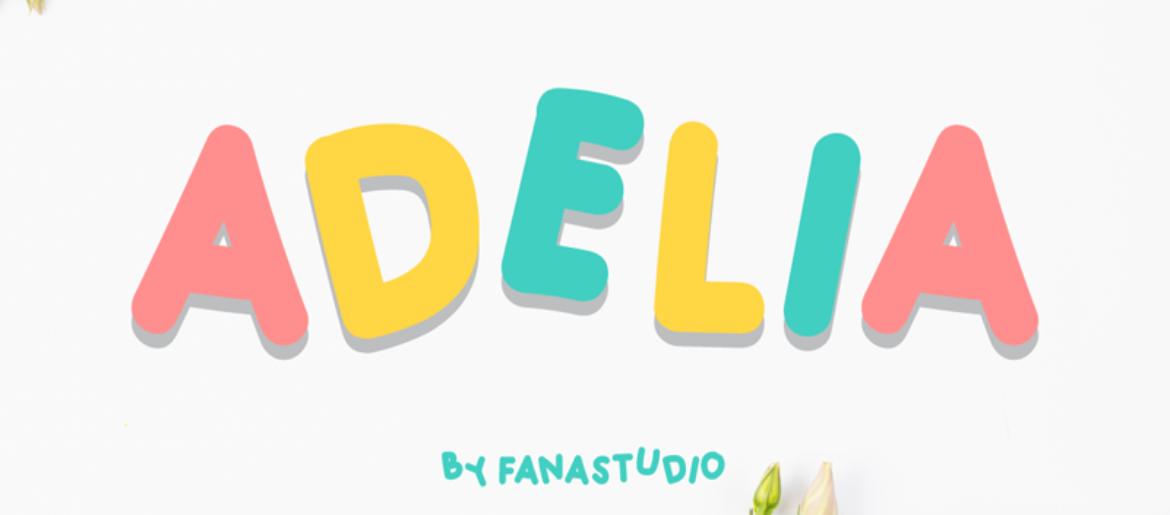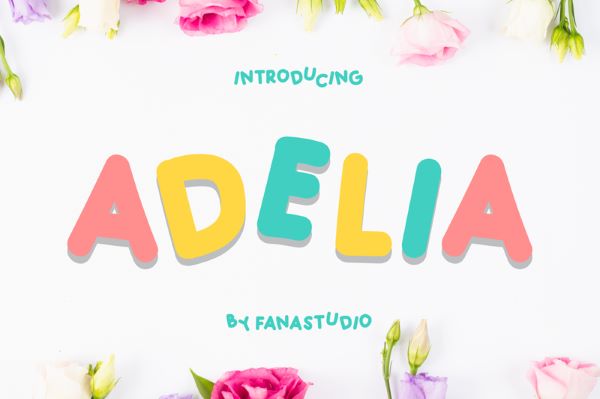
Adelia – Playful Font
Adelia Font
Adelia Font is a playful and cheerful display typeface that brings joy to any design. With rounded shapes and soft edges, it’s perfect for kids’ projects, greeting cards, posters, and logos, while international character support makes it ideal for friendly multilingual designs.
➤ Font Name: Adelia
➤ Designer: Fanastudio
➤ Style: Cartoon